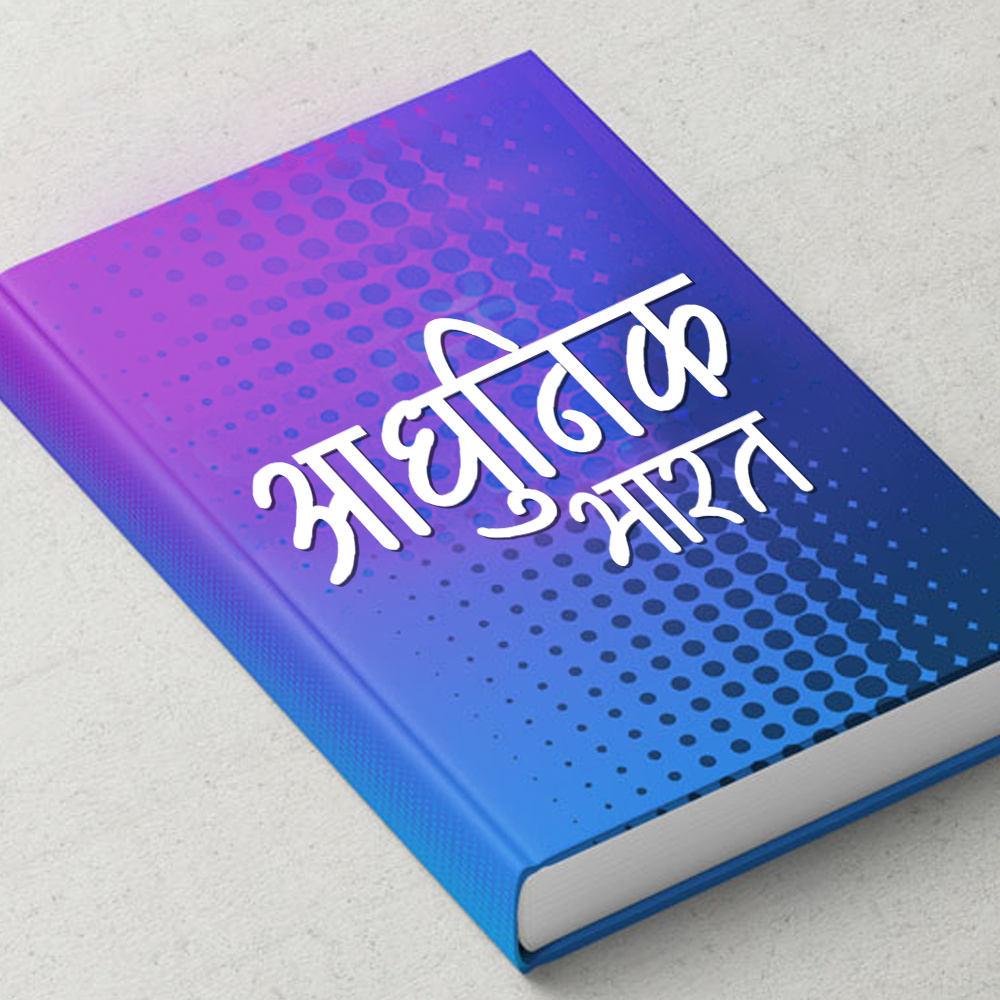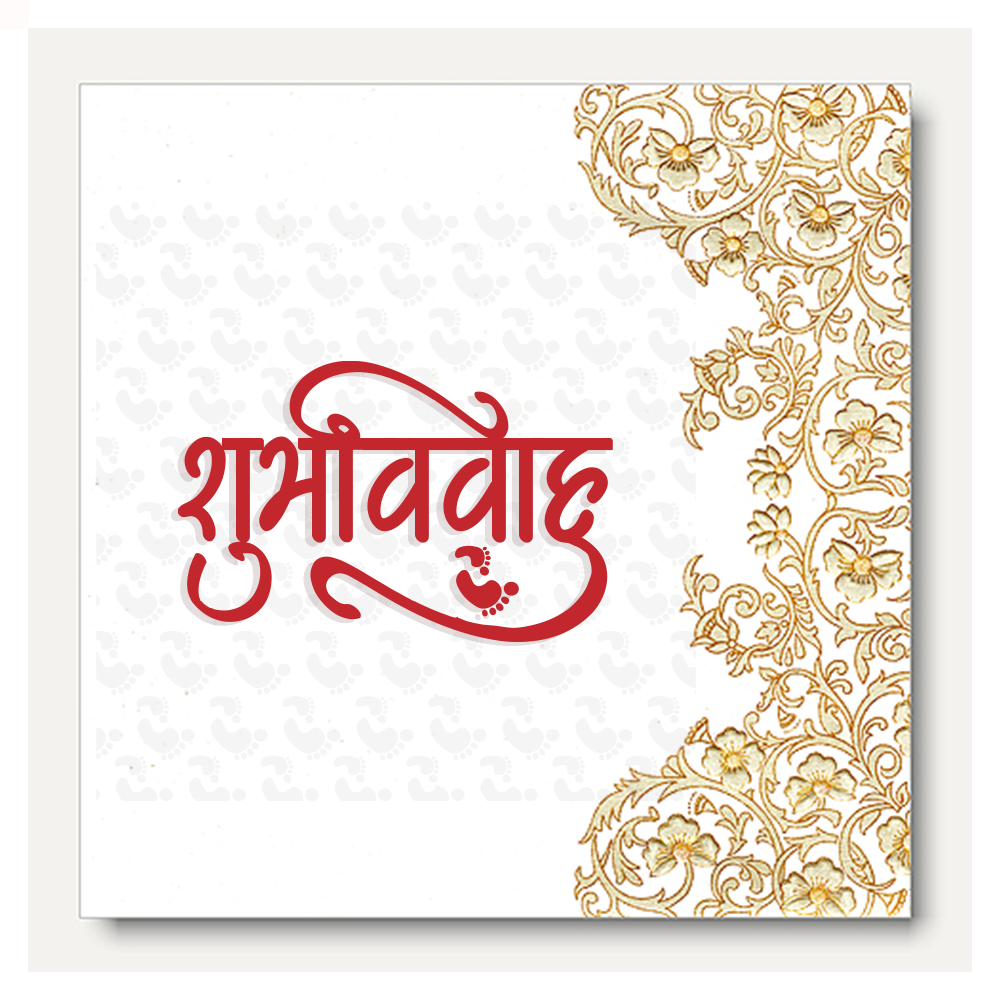
Unleash the beauty of nature with AMS Kasturi 1, a font that captures the essence of organic charm. Whether you're seeking free AMS fonts, exploring AMS Kasturi font download options, or looking for AMS Hindi font download choices, AMS Kasturi will add a touch of natural elegance to your designs.
About AMS Kasturi 1 Font
Unleash the beauty of nature with AMS Kasturi 1, a font that captures the essence of organic charm. Whether you're seeking free AMS fonts, exploring AMS Kasturi font download options, or looking for AMS Hindi font download choices, AMS Kasturi will add a touch of natural elegance to your designs. This calligraphy font combines elegance with functionality, making it perfect for various design applications.
AMS Kasturi 1 is a professionally crafted calligraphy typeface that brings clarity and style to your projects. Designed with attention to detail, it supports hindi and marathi characters flawlessly.
Whether you're working on invitations, posters, cultural-religious-designs, or other creative projects, AMS Kasturi 1 delivers consistent performance across both digital and print media. This carefully designed typeface ensures readability and visual appeal in all your design work.
About AMS Kasturi 1 Typography Style
AMS Kasturi 1 is a professionally crafted calligraphy font that exemplifies modern Hindi typography design. This free font is perfect for designers seeking impactful poster and display applications.
Available in 1 weight and supporting hindi, marathi scripts, AMS Kasturi 1 offers exceptional versatility for both digital and print media. Whether you're working on invitations, posters, cultural-religious-designs, this carefully designed typeface ensures consistent quality and professional results across all your typography projects.